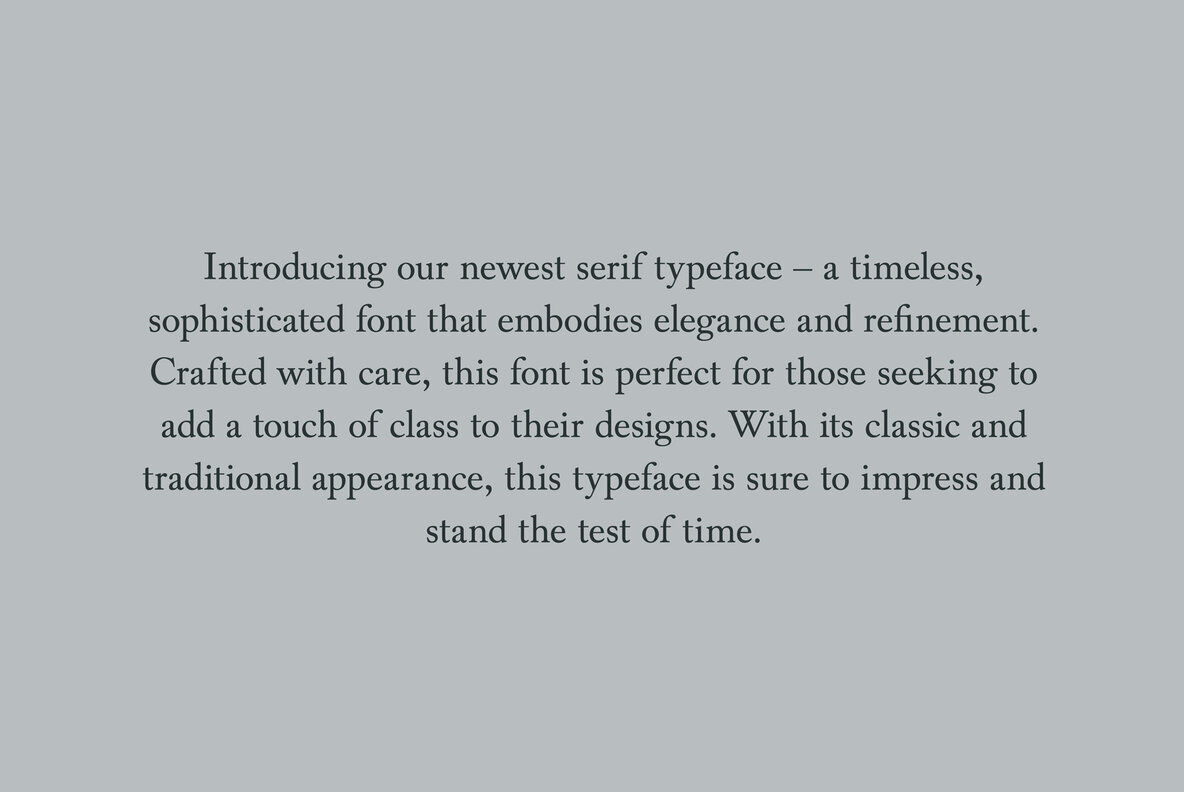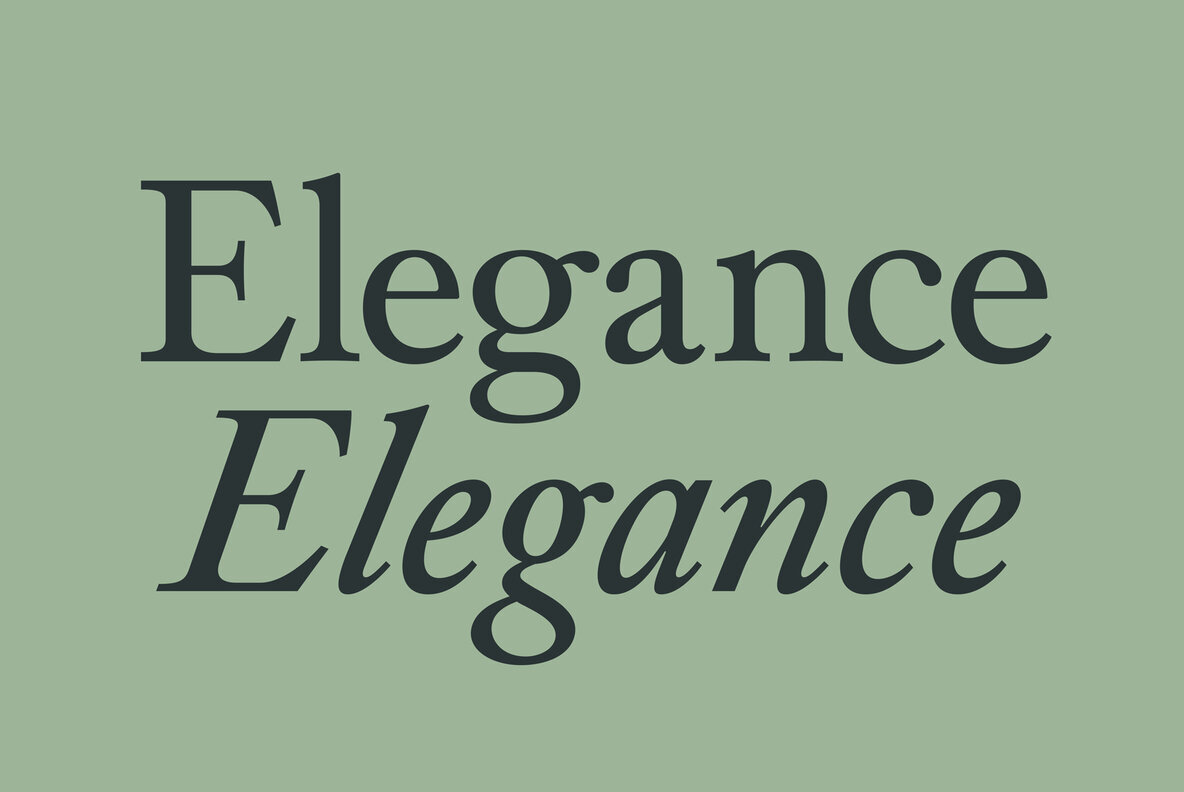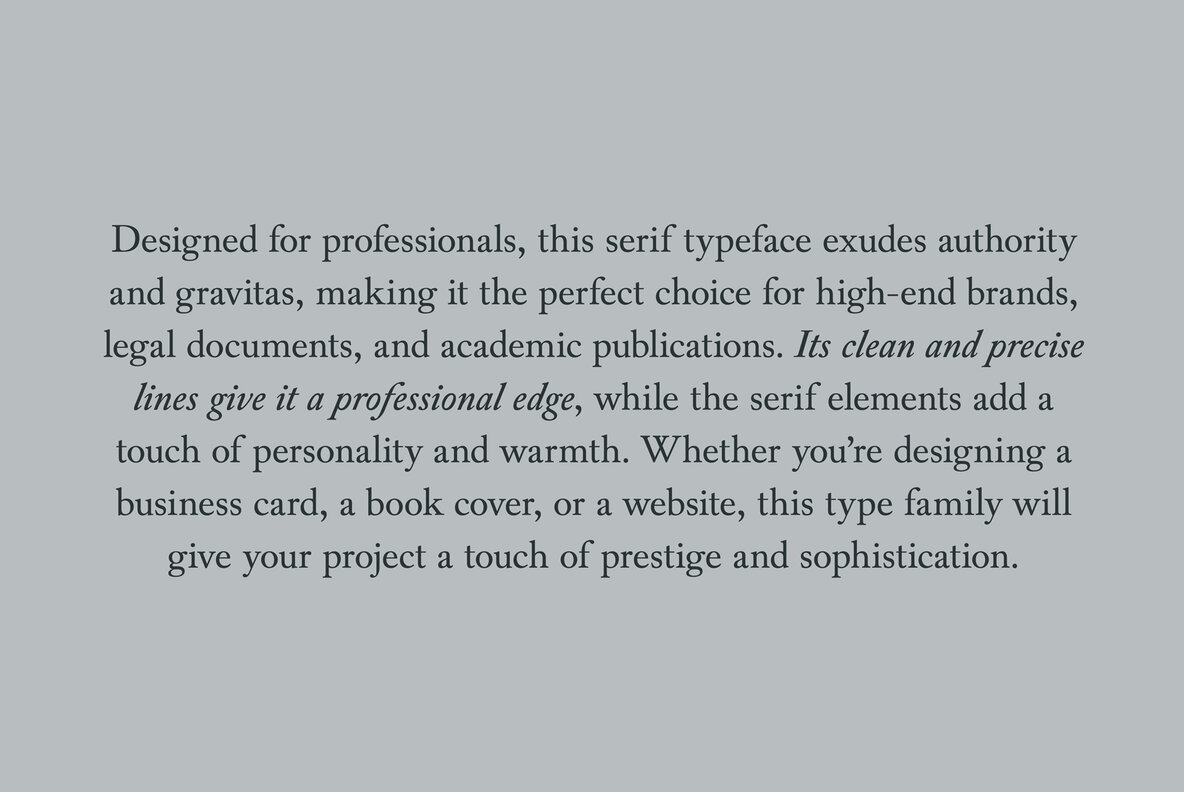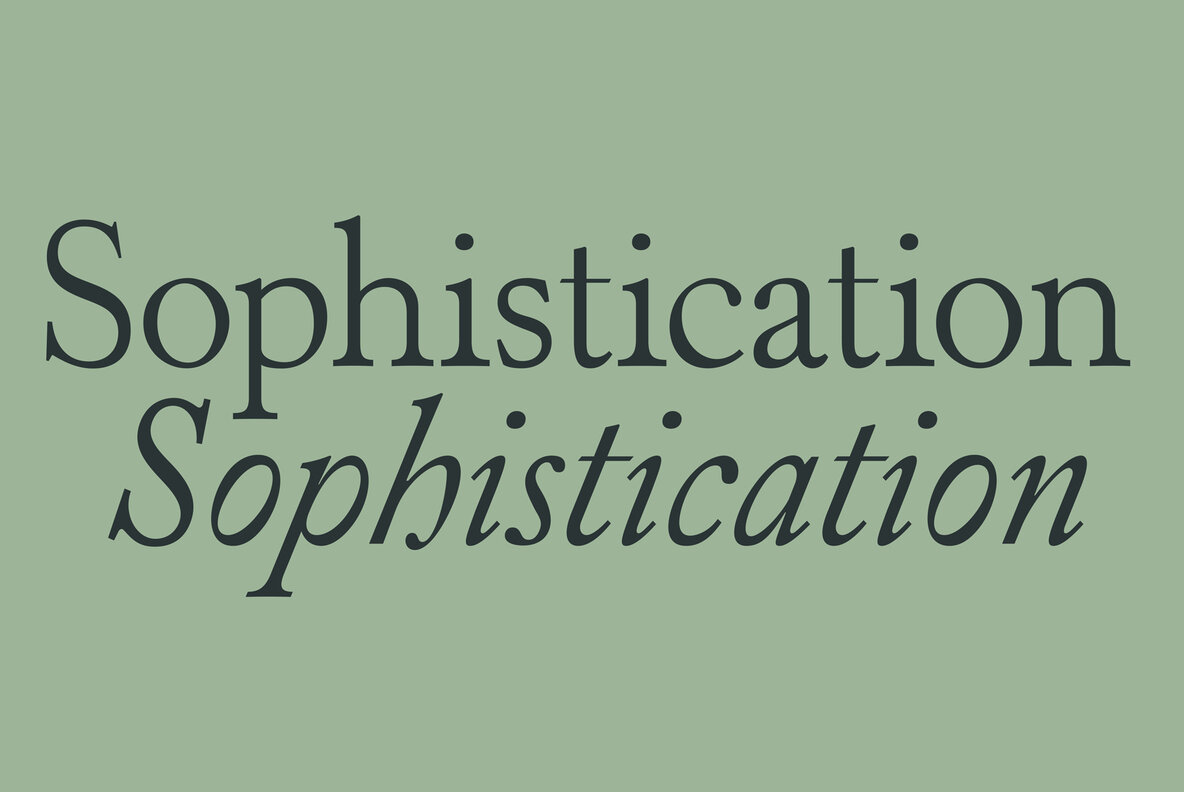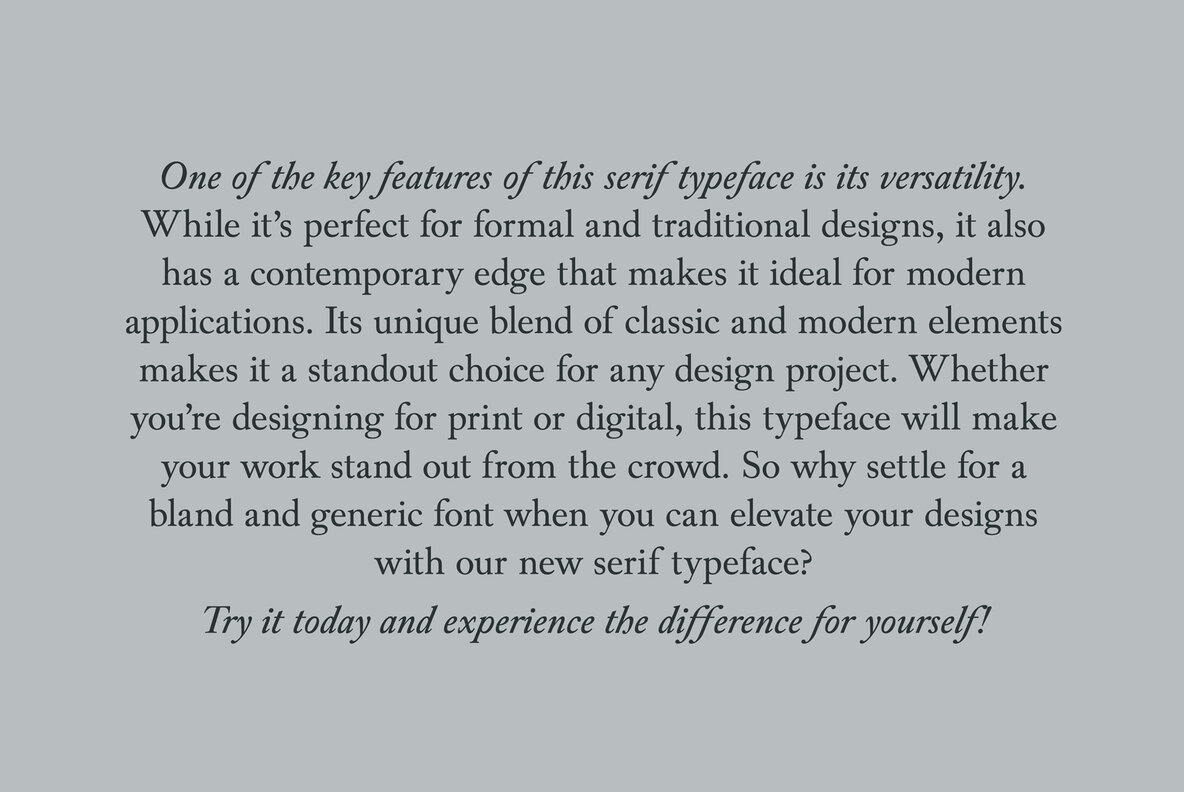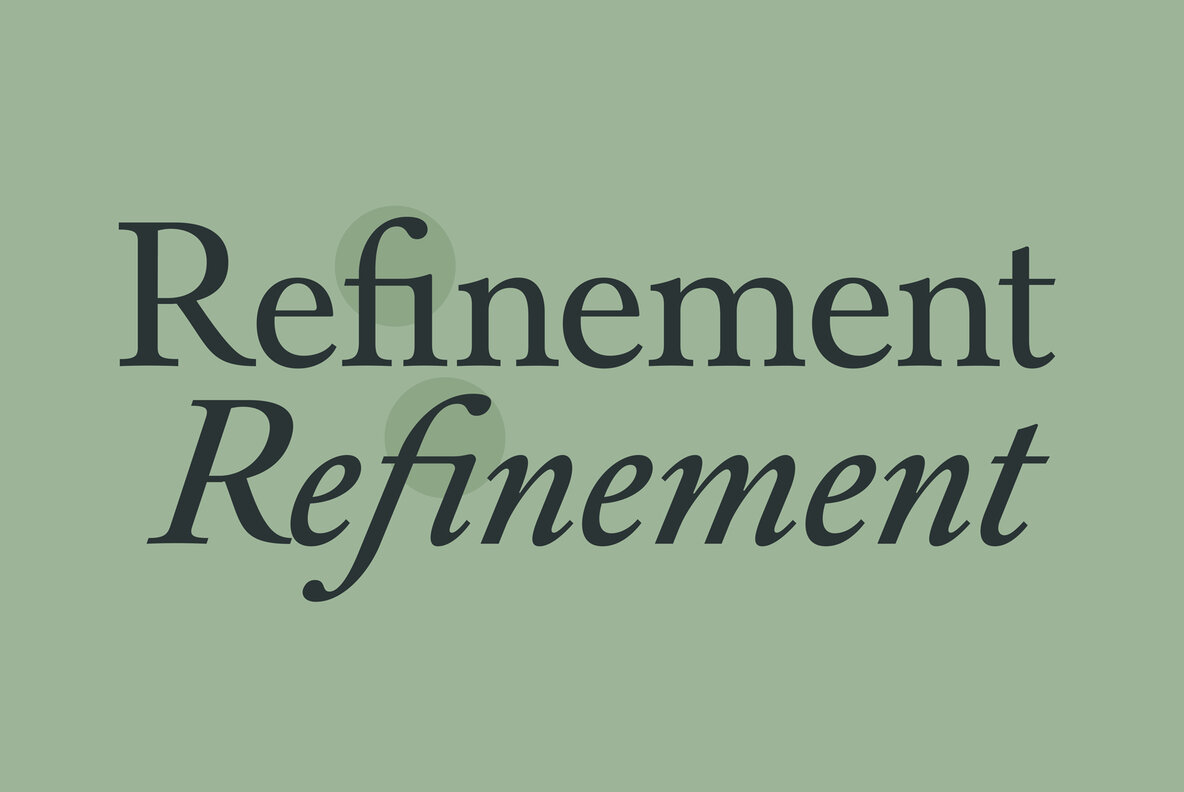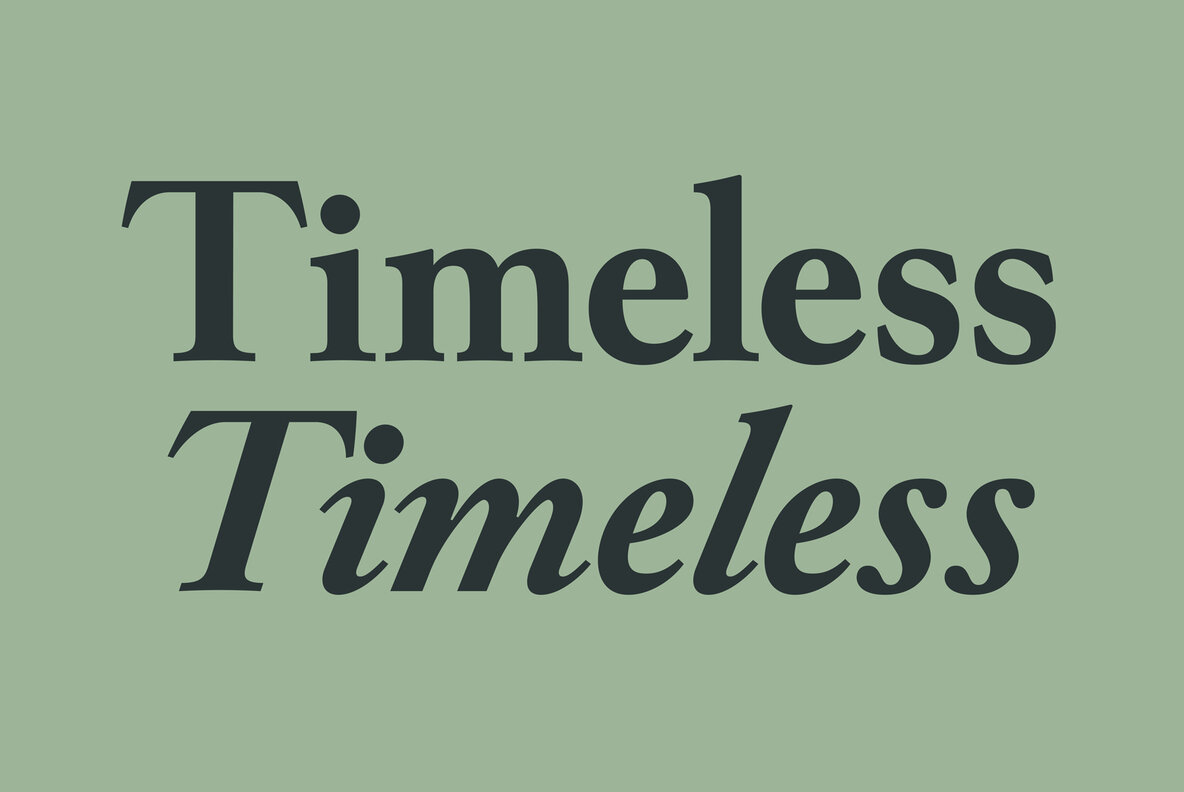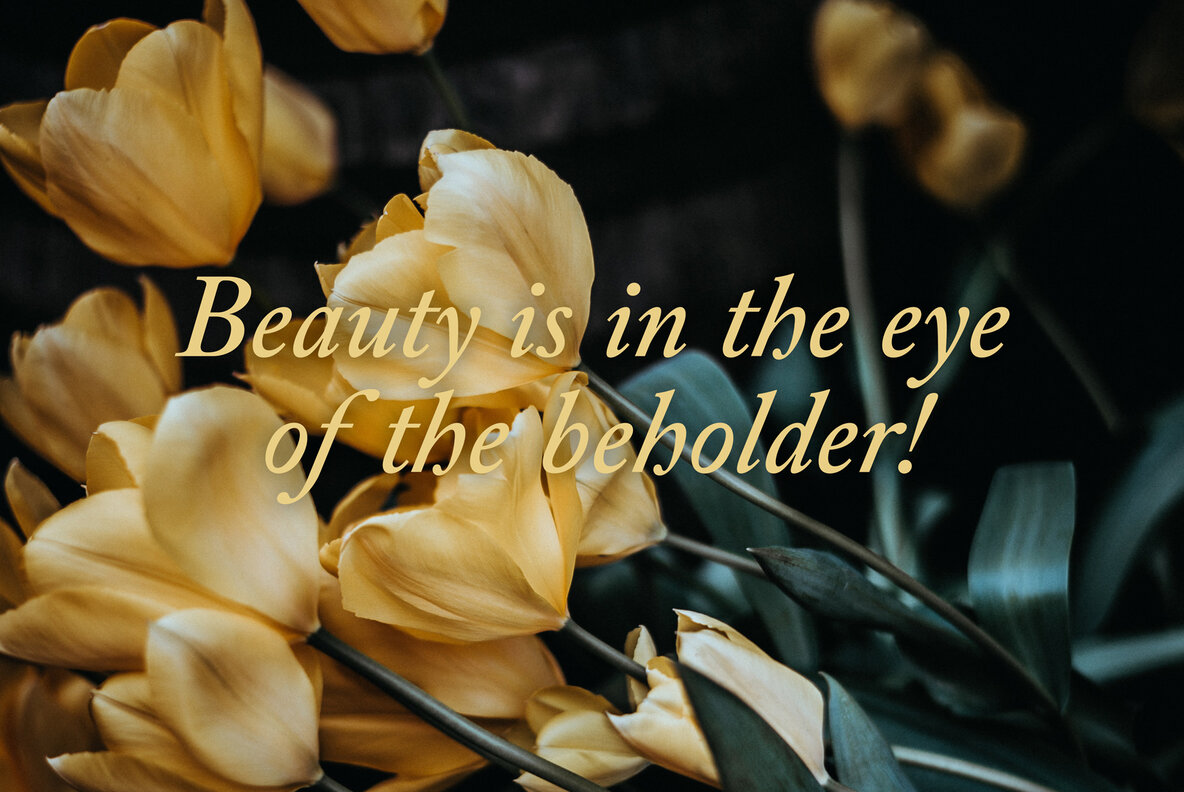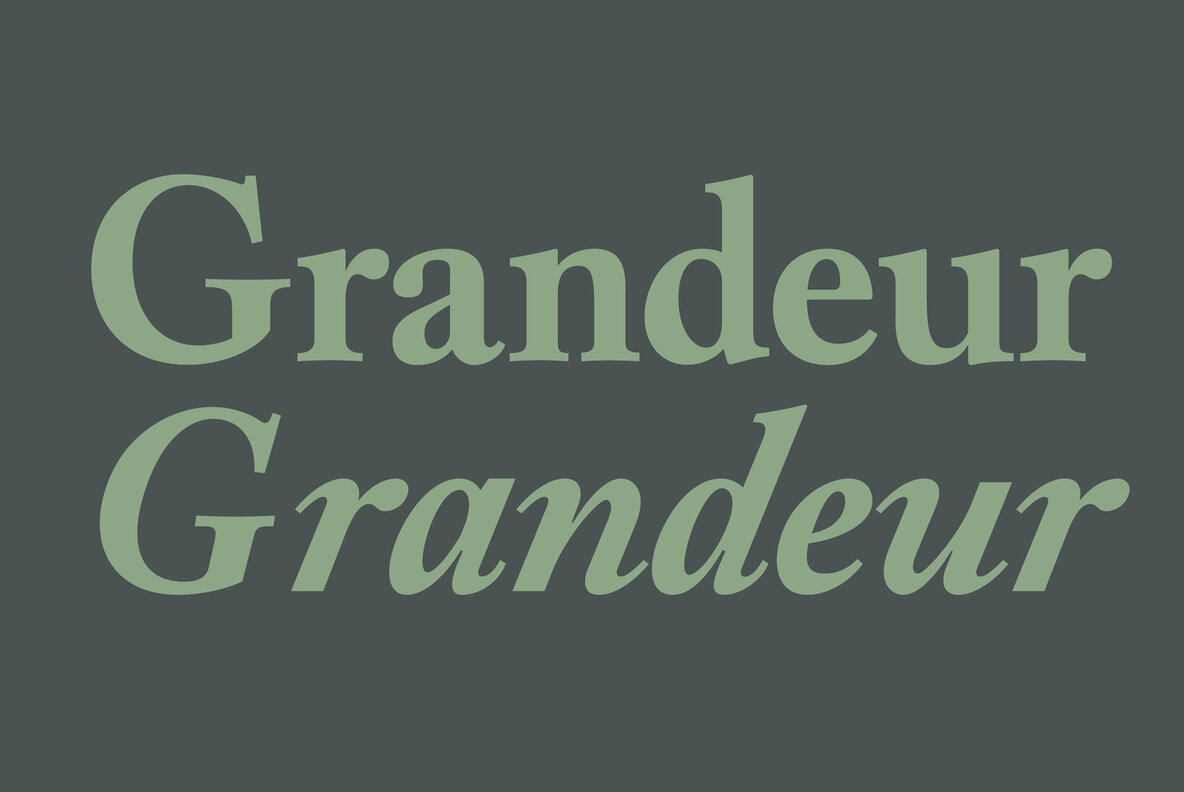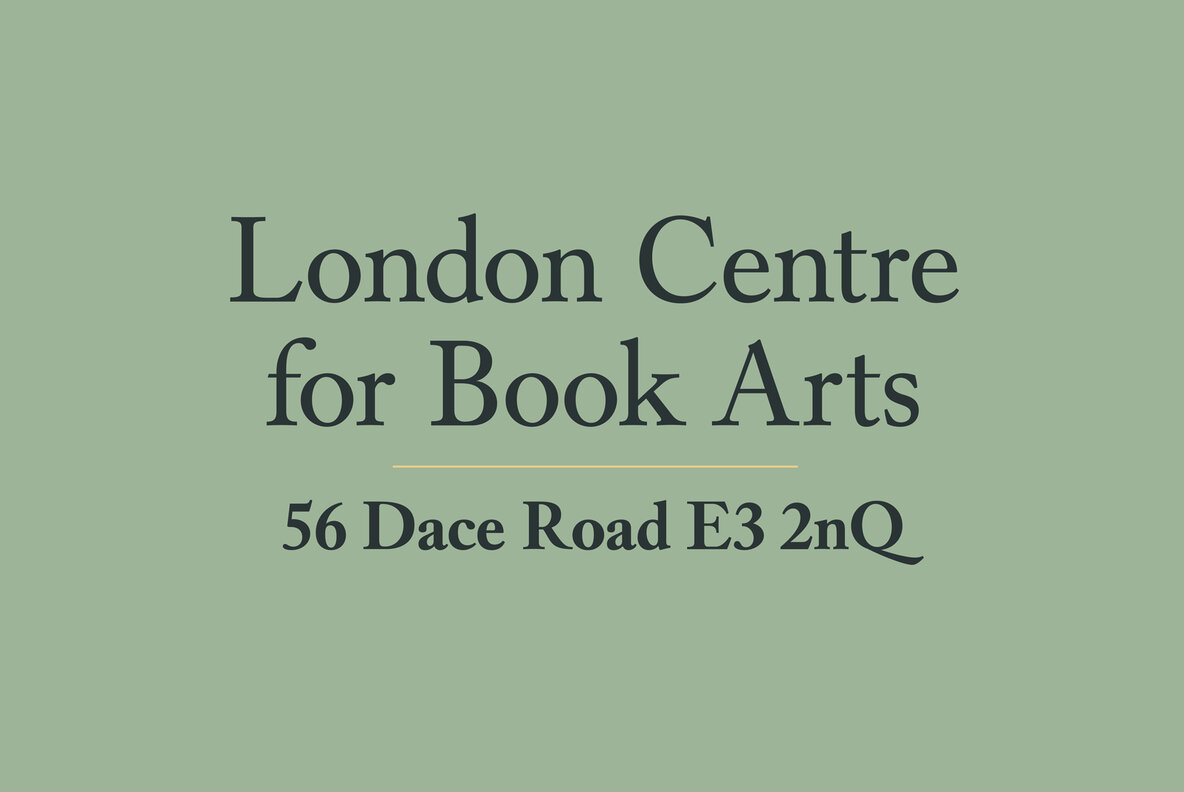
Alvito Nova Font
Introducing our newest serif typeface – Alvito Nova - a timeless, sophisticated font that embodies elegance and refinement. Crafted with care, this type family is perfect for those seeking to add a touch of class to their designs. With its classic and traditional appearance, this typeface is sure to impress and stand the test of time. Designed for professionals, this serif typeface exudes authority and gravitas, making it the perfect choice for high-end brands, legal documents, and academic publications. Its clean and precise lines give it a professional edge, while the serif elements add a touch of personality and warmth. Whether you’re designing a business card, a book cover, or a website, this font will give your project a touch of prestige and sophistication. One of the key features of Alvito Nova is its versatility. While it’s perfect for formal and traditional designs, it also has a contemporary edge that makes it ideal for modern applications. Its unique blend of classic and modern elements makes it a standout choice for any design project. Whether you’re designing for print or digital, this font family will make your work stand out from the crowd. So why settle for a bland and generic font when you can elevate your designs with Alvito Nova? Try it today and experience the difference for yourself!